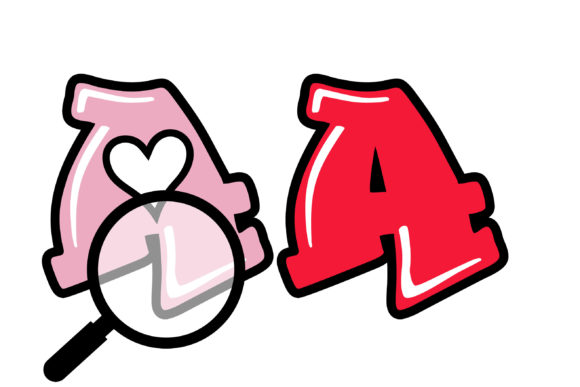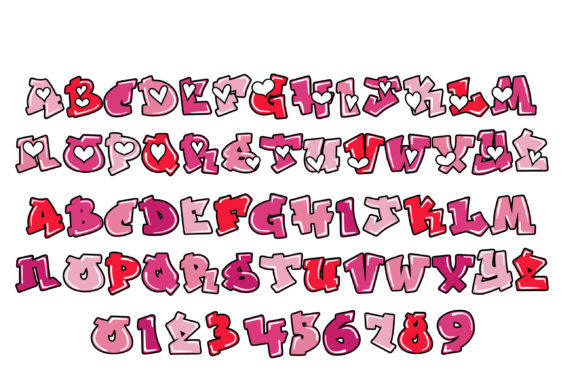
Introduction to Hip Heart Font
Have you ever found yourself staring at a blank page, searching for the perfect design element to bring your creative project to life? For designers, the hunt for that elusive ‘something special’ can be a daunting task. But what if I told you that the solution lies in the most iconic symbol of love and affection – the heart?
Introducing the Hip Heart Font, a vibrant, full-color font that’s perfect for adding a touch of whimsy to your designs. This stunning graffiti-style font is sure to capture the hearts of designers everywhere, offering a unique and eye-catching design resource that’s just waiting to be unleashed. With its high-quality, transparent background and bold pink/red color palette, the Hip Heart Font is the perfect addition to any design project.
Key Features of Hip Heart Font
• Unique, playful design ideal for creative projects and designs
• Perfect for use in social media graphics, logos, and other design elements where a fun, heart-themed font is desired
Honest Review: Hip Heart Font
What works well about the Hip Heart Font is its high quality and versatility. It’s perfect for a variety of design applications, from logos and branding to social media graphics and advertisements. The font is also available in a transparent background option, making it easy to layer and combine with other design elements.
Pros:
• ✨ High-quality design that’s perfect for creative projects
• ✨ Available in a transparent background option
Cons:
• ⚠️ Limited font styles and variations
• ⚠️ Not ideal for formal or professional design projects
Overall, I’m impressed with the Hip Heart Font. It’s a great resource for designers looking to add a touch of personality to their work. While it may have some limitations, it’s a high-quality font that’s definitely worth checking out.
Tips for Getting the Most Out of Hip Heart Font
Use the font in a creative project, such as a social media campaign or a marketing brochure, to add a touch of personality and whimsy. Experiment with different font sizes, colors, and styles to achieve the desired effect. Use the font in conjunction with other design elements, such as icons and graphics, to create a visually appealing design.
The Hip Heart Font is a versatile design resource that can be used in a variety of creative projects. Some common use cases include:
Designing a logo or branding materials for a business or organization
Creating social media graphics and posts
Designing a wedding or event invitation
Creating a high-quality print or digital publication